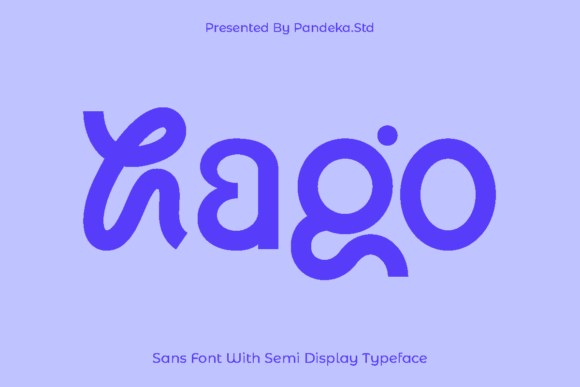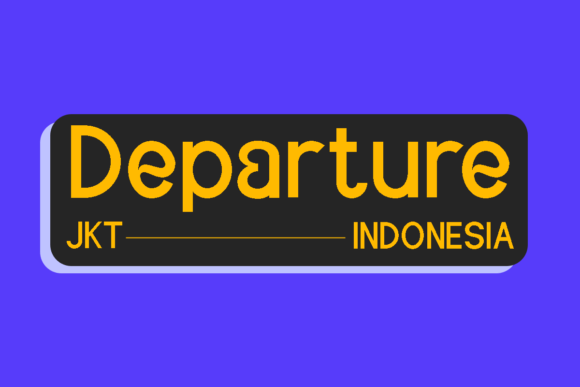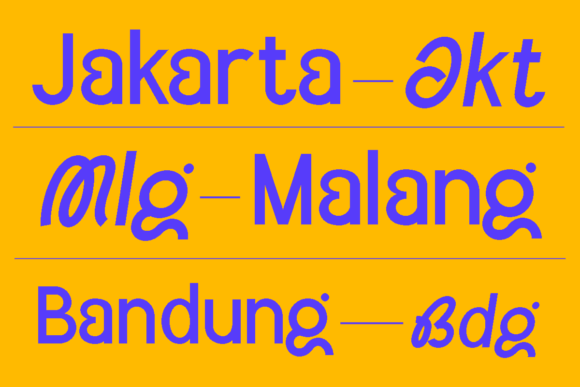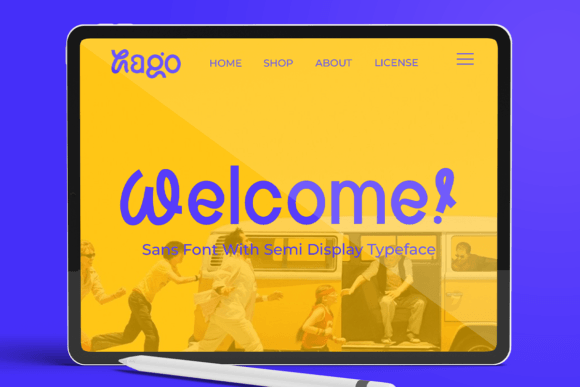
Hago Font: A Playful Sans Serif Font for Unique Logo Design
About the Hago Font
Elevate your designs with Hago Font, a font that combines sophistication with readability. Hago is a casual sans that is the perfect combination of strength & play.
With stunning, strong uppercase sans and a more playful loopy sans, you have the flexibility to mix & match to create the perfect combination.
Simply type in uppercase or lowercase to switch from strong sans to playful loops.
Hago’s dual nature makes it ideal for headlines, short impactful statements, and branding elements where a playful yet confident tone is desired. It excels in logos, posters, and short-form social media content. However, its playful lowercase forms are less suitable for large blocks of text or body copy; readability suffers in extended use. Avoid using it for UI elements or lengthy paragraphs.
Consider pairing Hago with a clean, geometric sans-serif like Futura for a modern, balanced aesthetic, or a classic serif like Garamond for a sophisticated contrast. For a more playful approach, a handwritten script font could complement its loopy lowercase. The choice depends on the desired level of contrast and overall brand personality.
Hago projects a bold and friendly personality, balancing strength with approachability. It’s well-suited to brands targeting a young, active audience or those wishing to convey a sense of fun and energy without sacrificing visual impact.